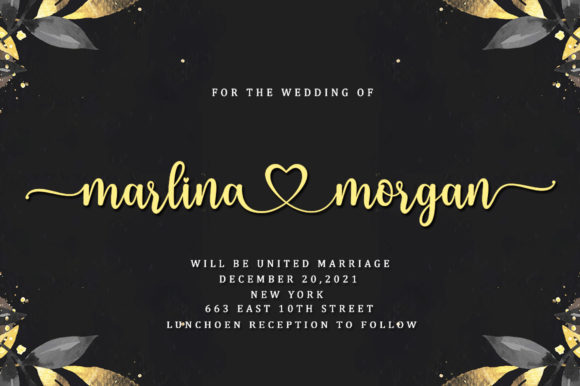
Holindya Sephalie Font
db-ku.com - Script & Handwritten -- Holindya Sephalie is a royal and elegant script font. It is suitable for any branding project like logos, t-shirt printing, sport designs, and more. It will look outstanding in a wide range of contexts. This font is PUA encoded which means you can access all of the glyphs and swashes with ease!